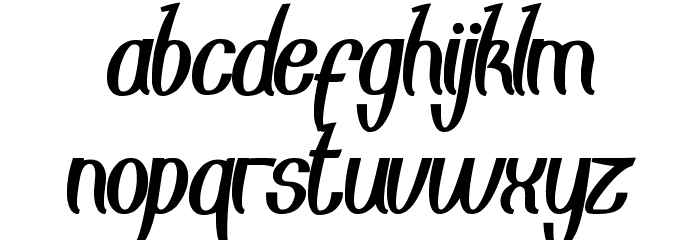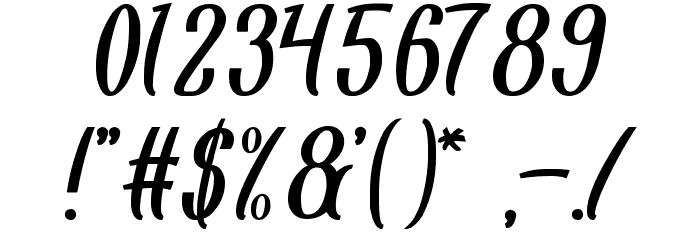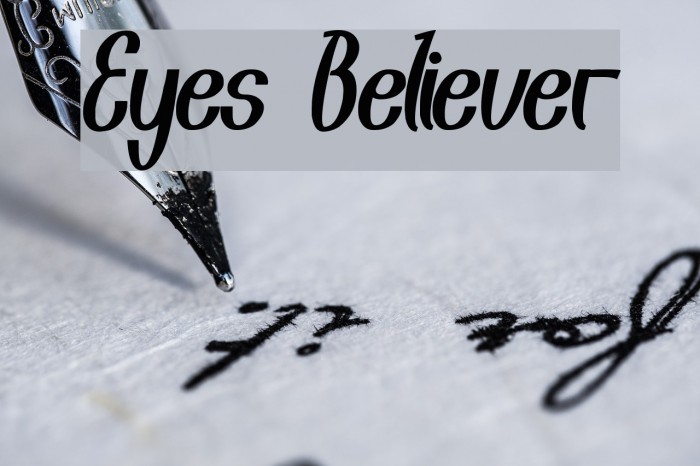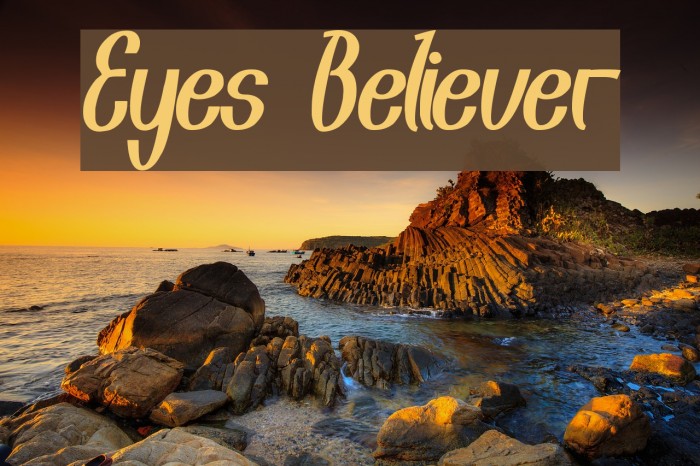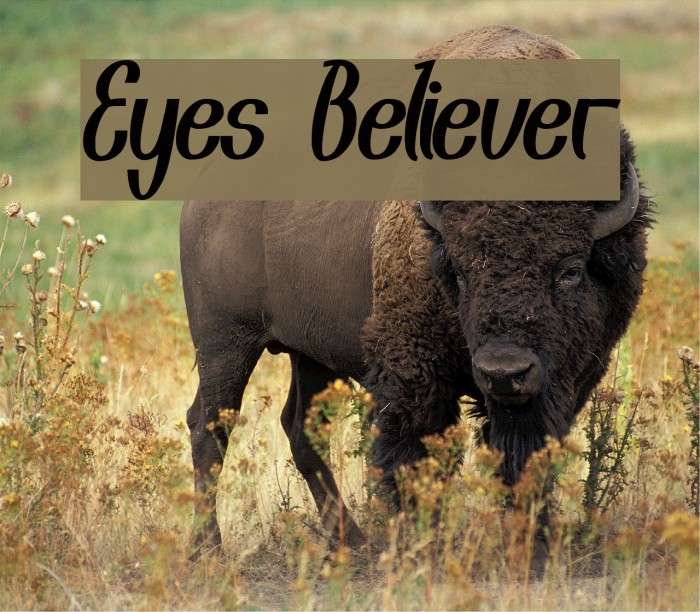
Eyes Believer Font
This font features a dynamic and flowing script style with a modern twist. The uppercase letters are bold and slightly condensed, giving a sense of movement and energy. The lowercase letters maintain a consistent flow, with some characters like 'g', 'j', and 'y' having distinctive loops that add to the font's charm. The numbers are well-balanced, matching the style of the letters, and the special characters are creatively integrated, maintaining the overall aesthetic. This font is perfect for projects that require a touch of elegance and flair, while still being readable and stylish.
A dynamic script font with bold, flowing characters and a modern flair.
- Proposed Projects: Ideal for branding, invitations, posters, and social media graphics.
- Use Case: Logos, Headlines, Invitations